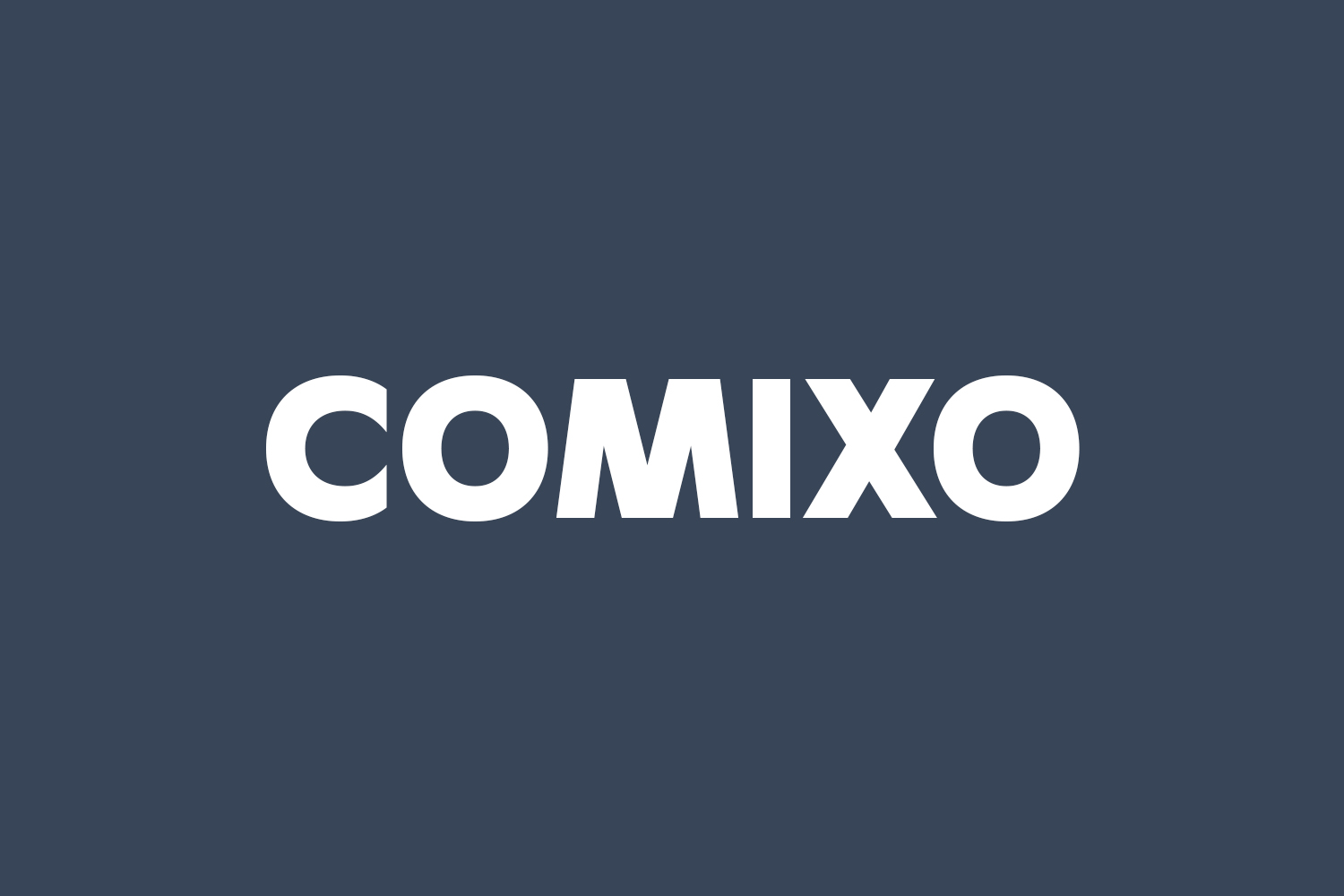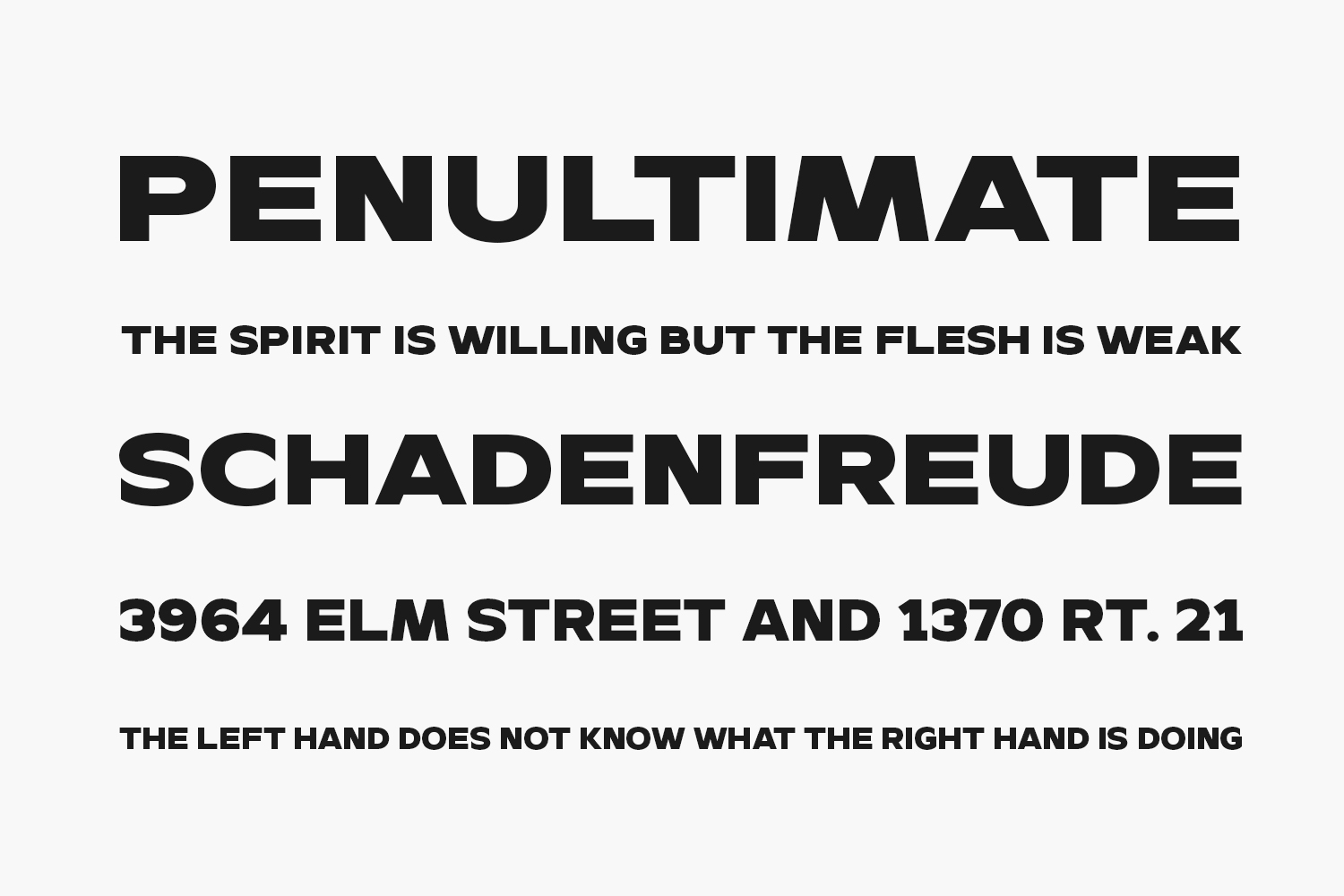
Introducing Comixo Free Font is a contemporary sans serif typeface. Comixo embodies modern sophistication, ideal for enhancing headings, logos, branding, magazines, product packaging, and invitations. With its sleek lines and graceful curves, Comixo adds a refined elegance to any project. Download the font for free if you need it for personal use or purchase the full version for commercial use.
Designed by BrandSemut